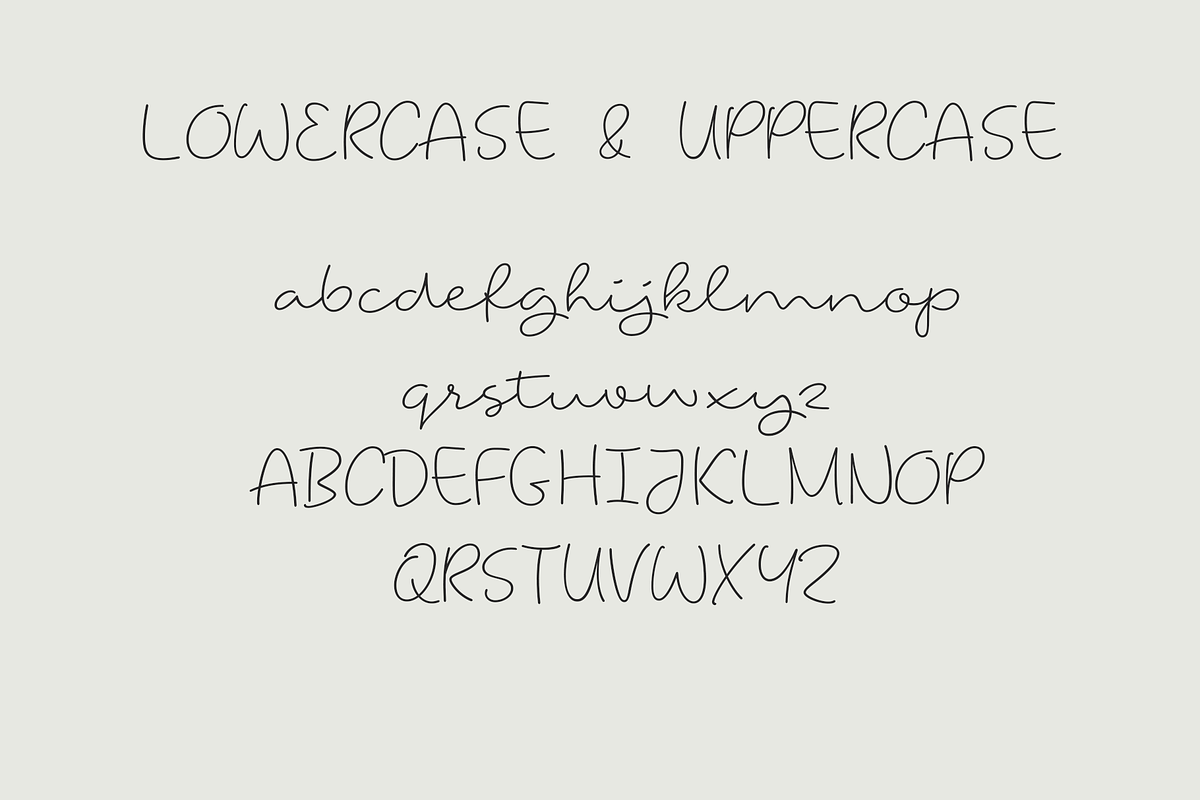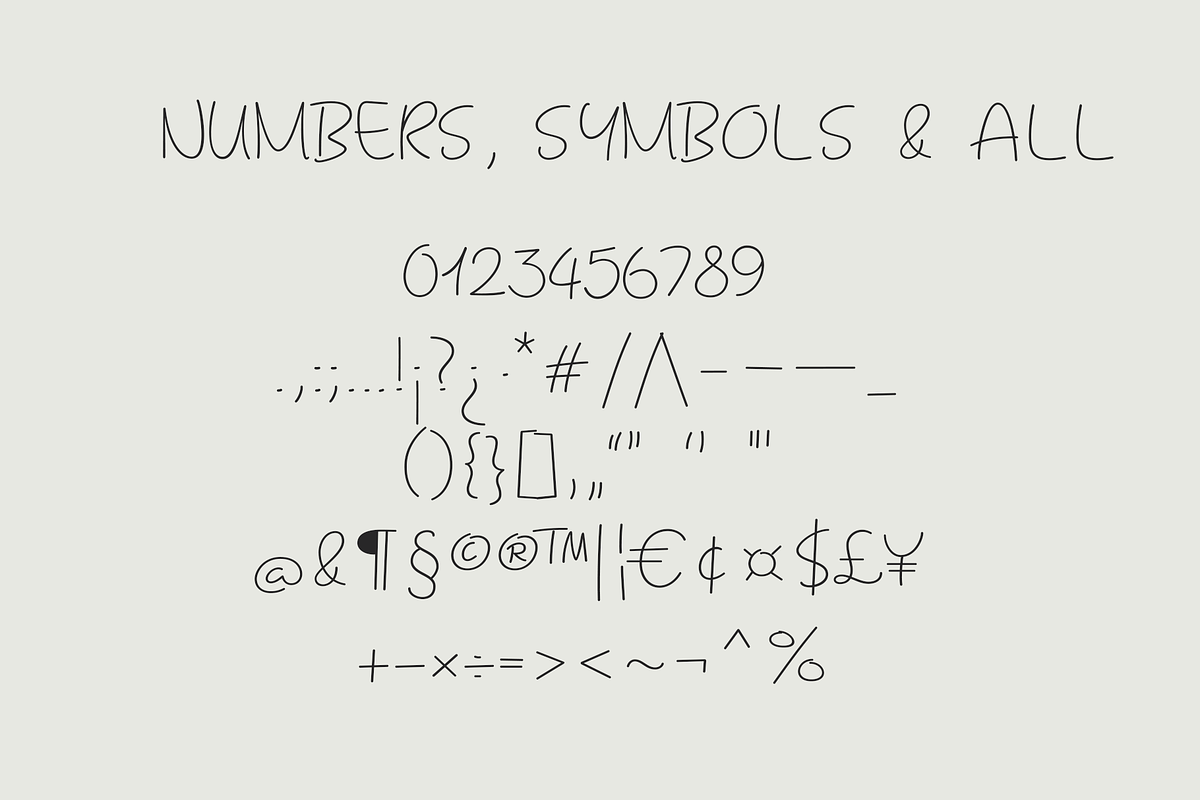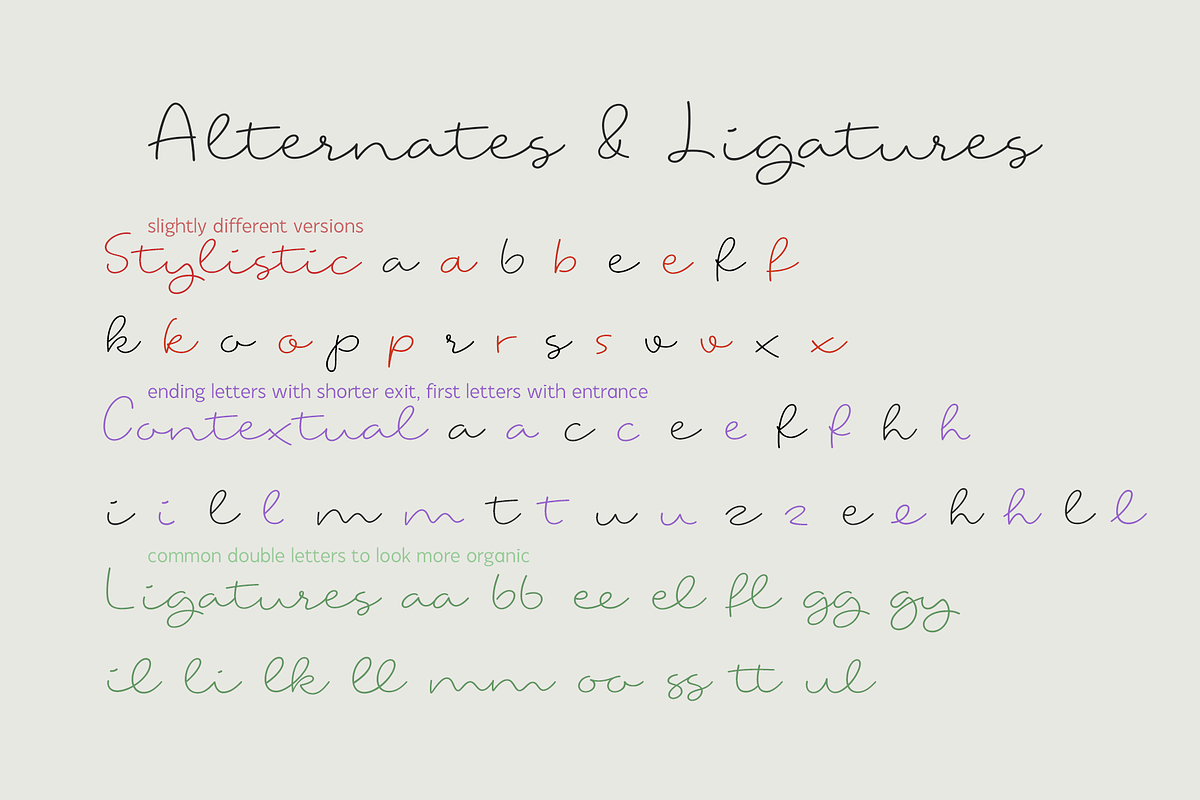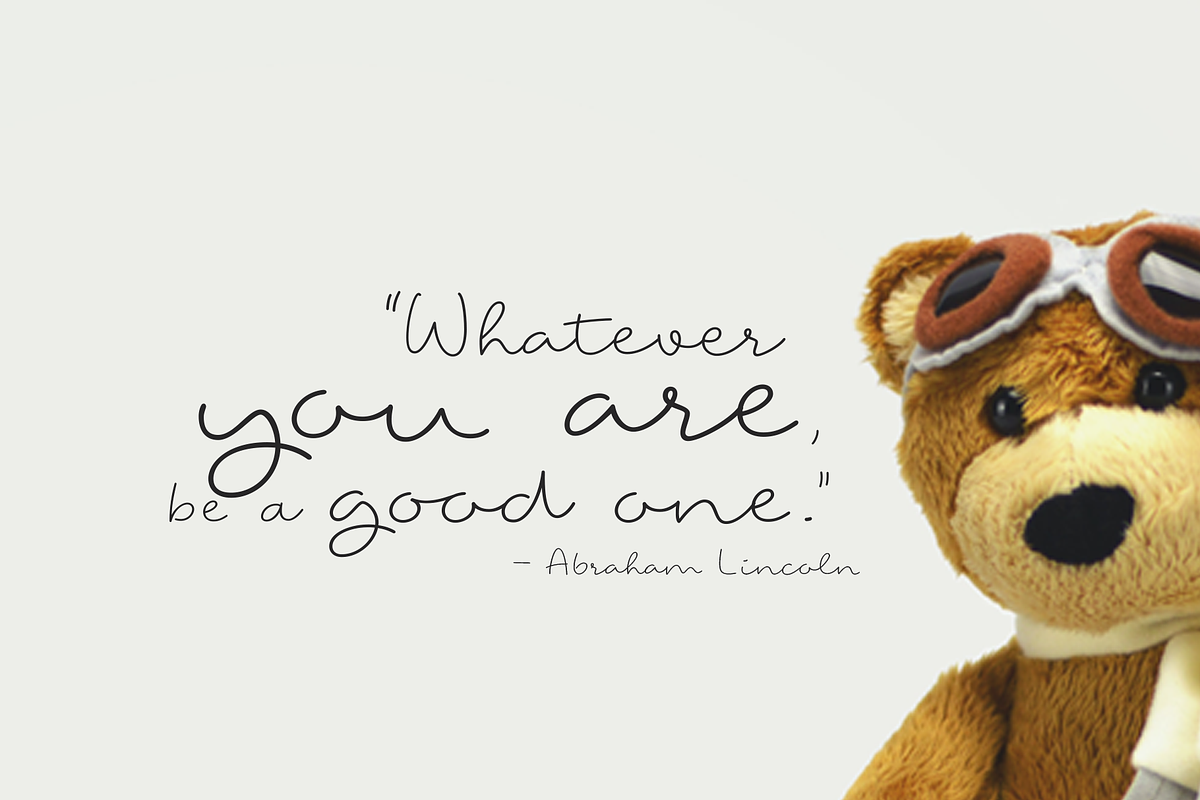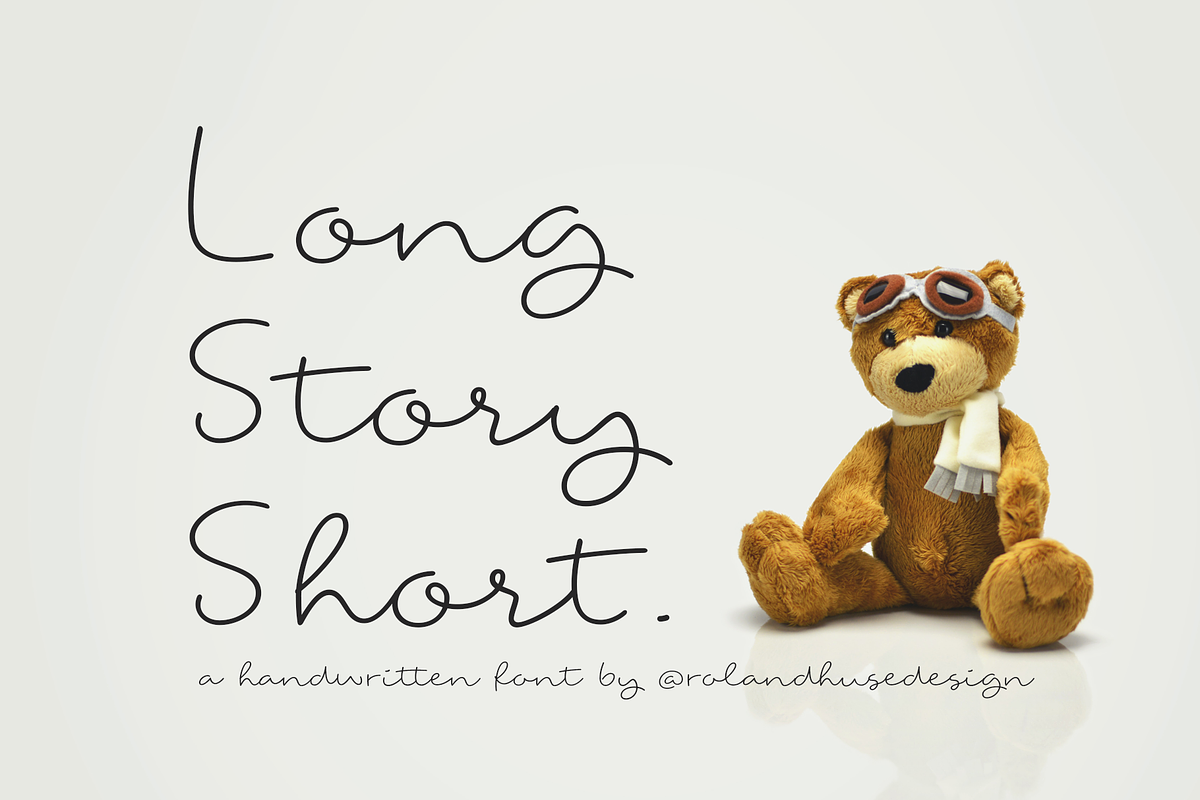
Long Story Short
LONG STORY SHORT. A casual, friendly hand-written font. It is perfect for kids theme, postcards, prints, embroidery, and web. It contains all Western European, Eastern European accents and special characters along with OpenType features such as stylistic, contextual alternates and ligatures for a better and more organic flow. If any question, or request, please don’t hesitate to contact me.